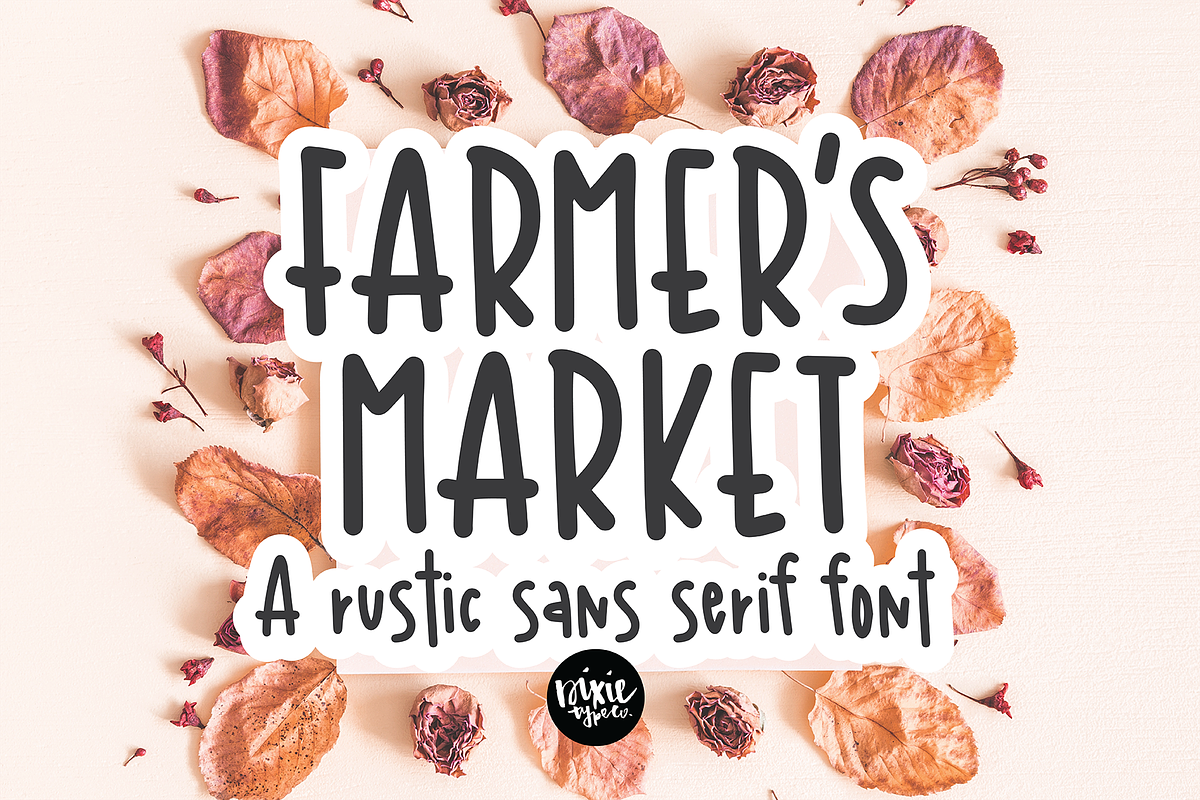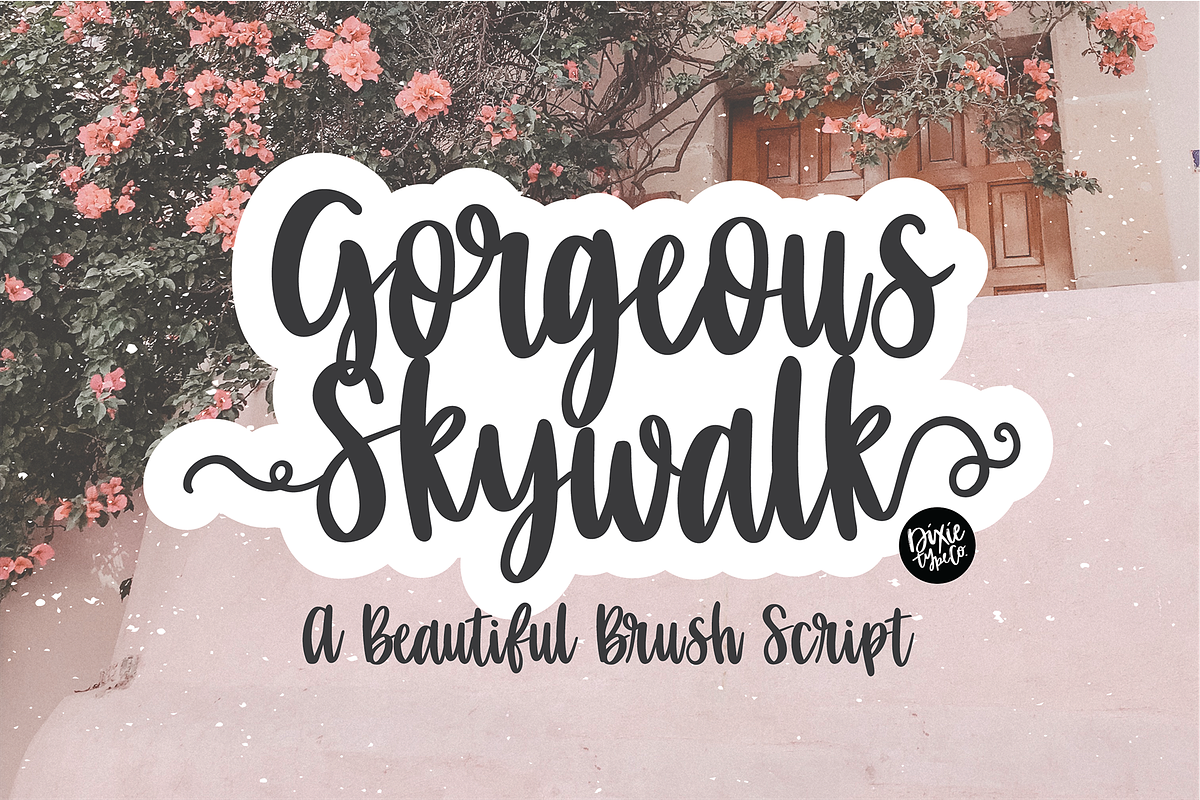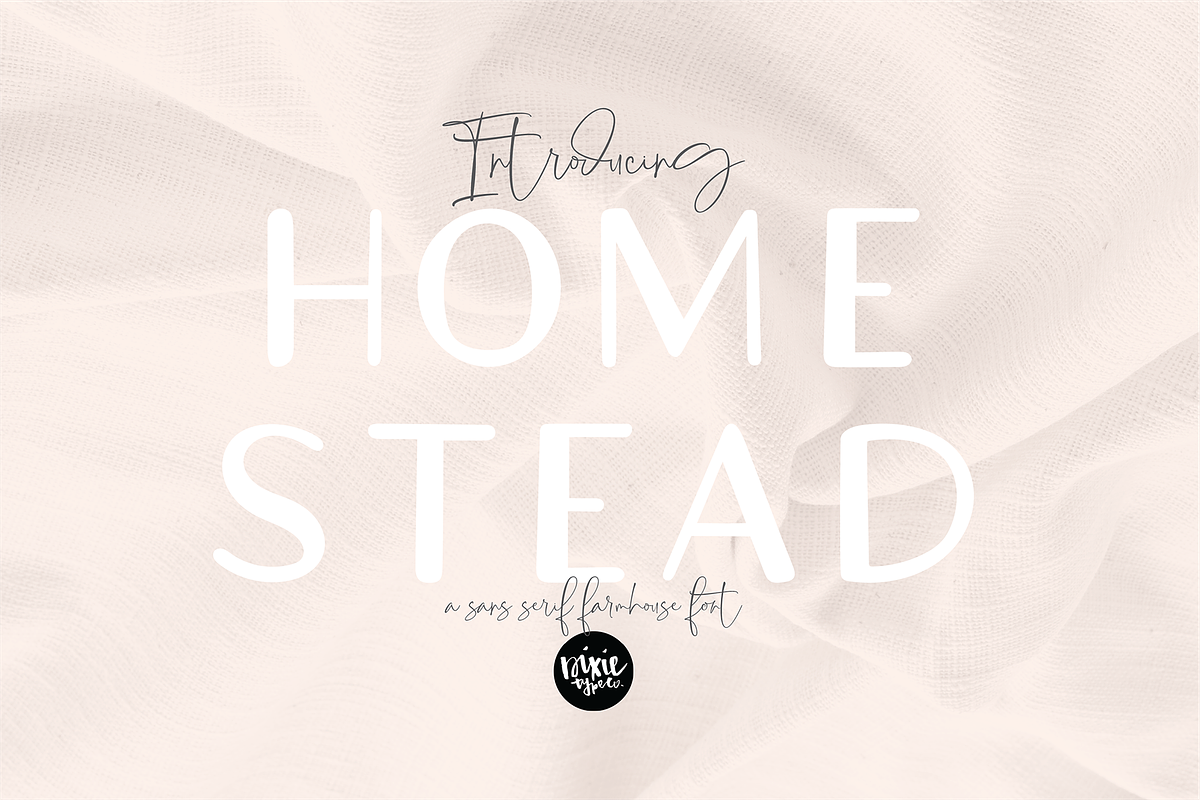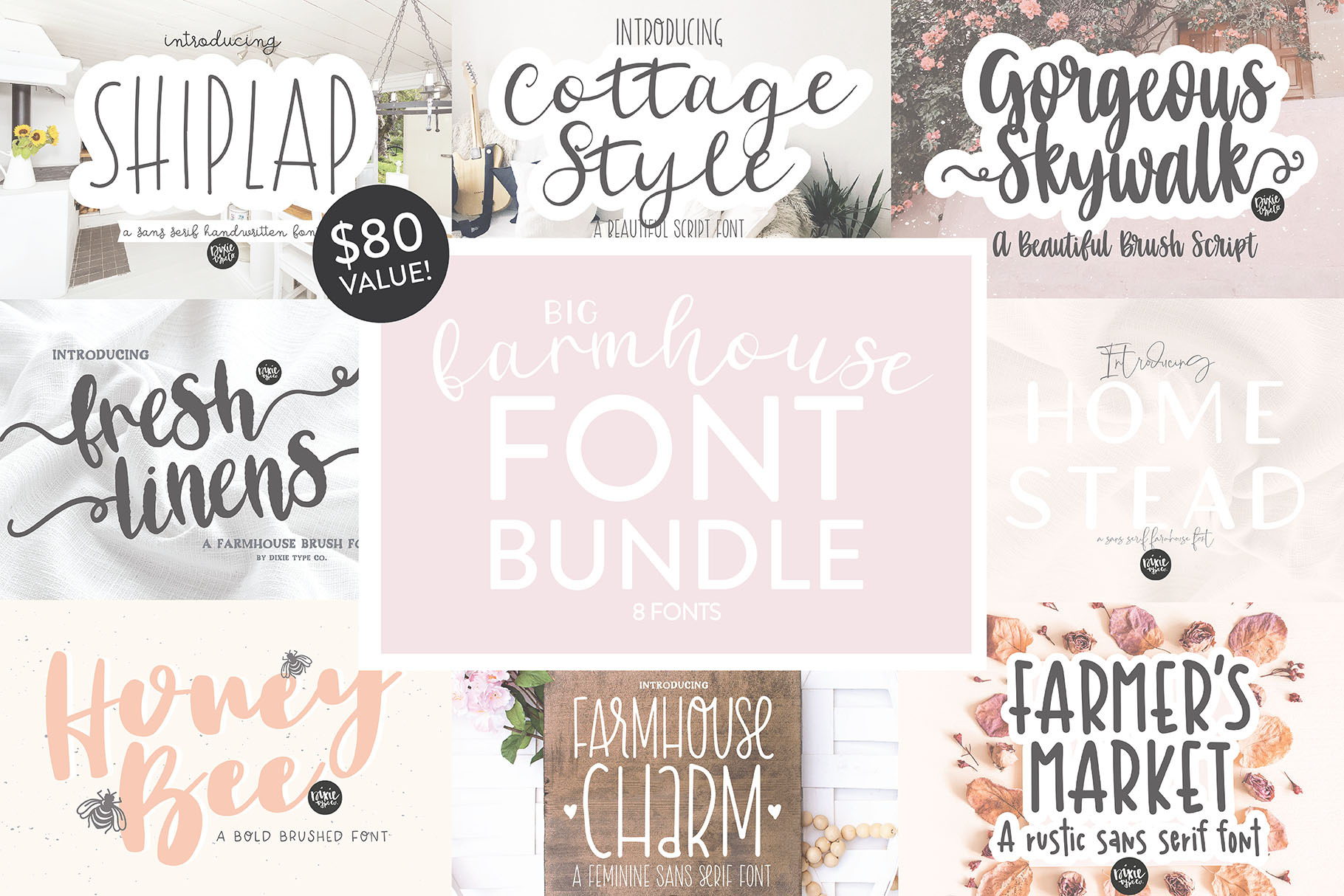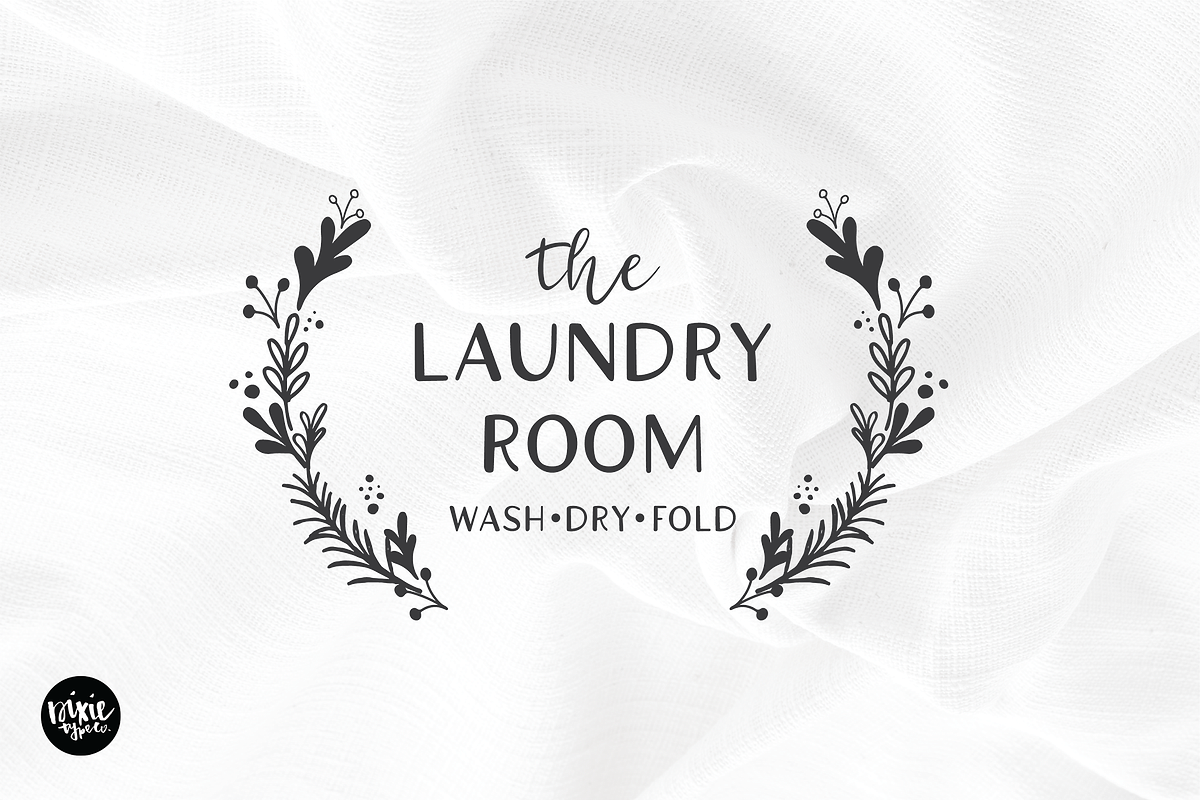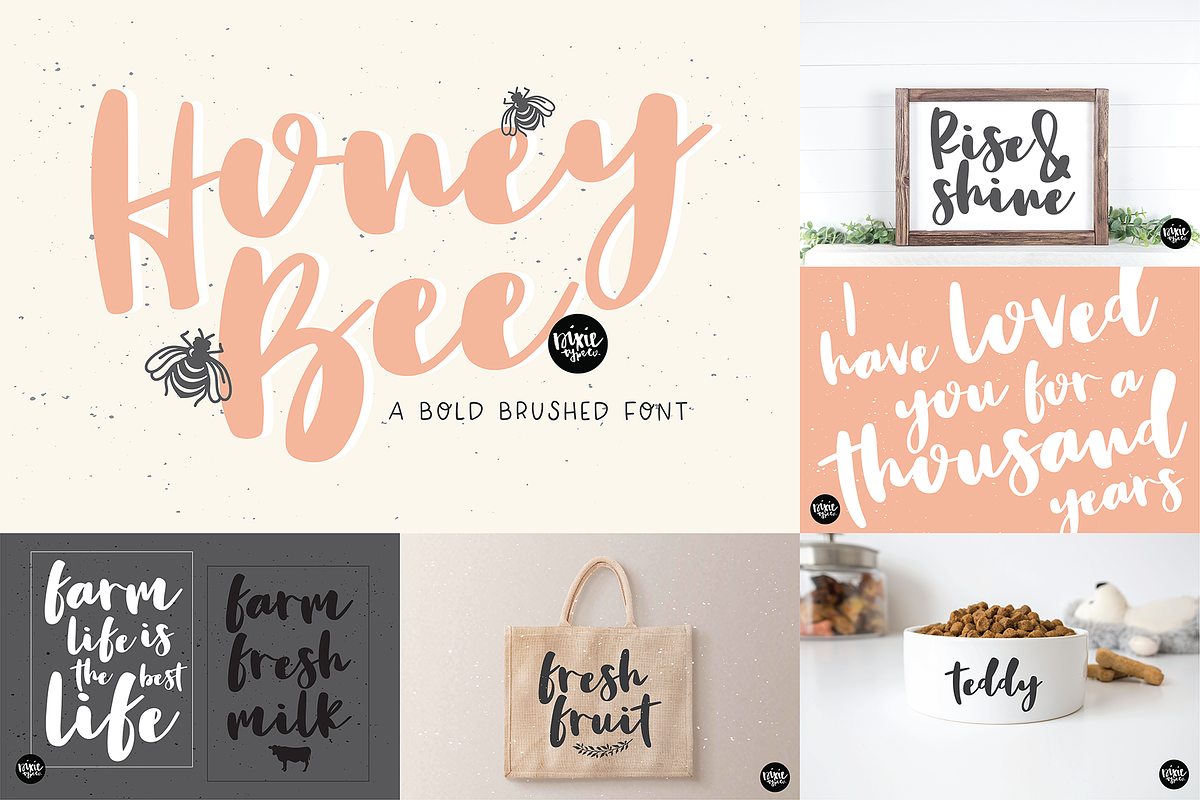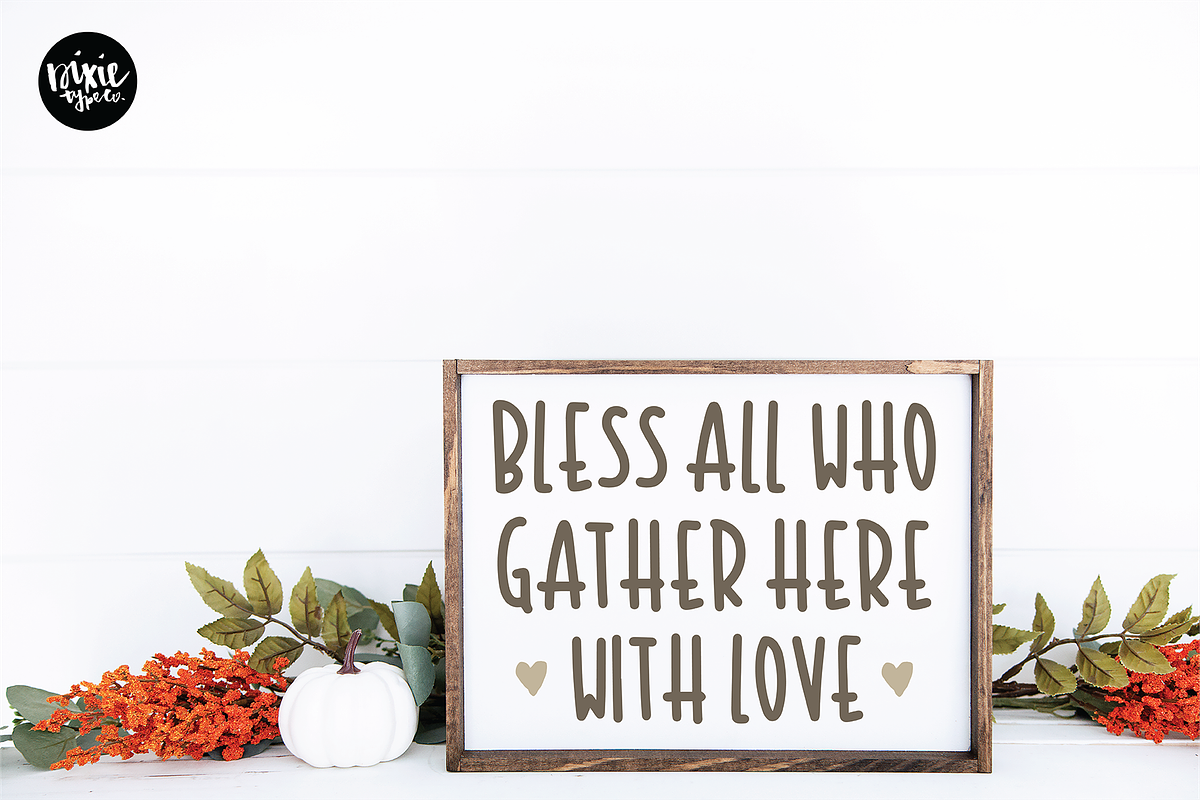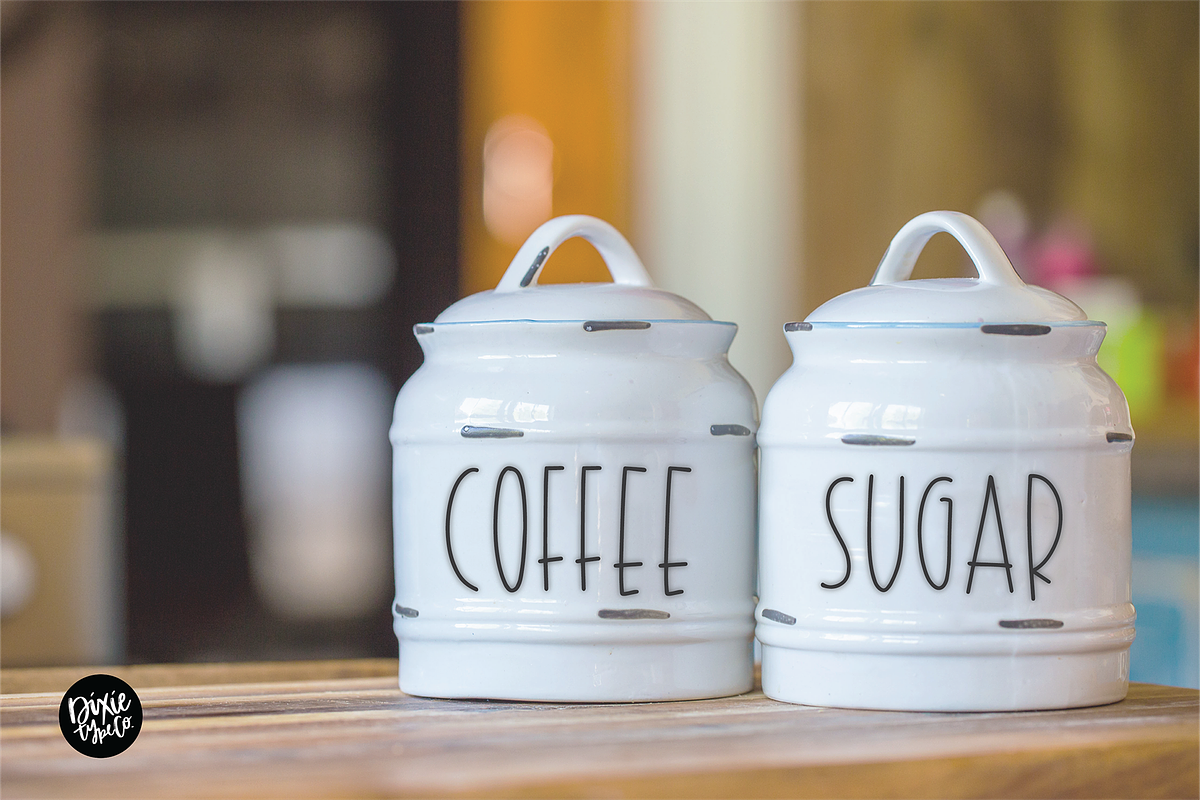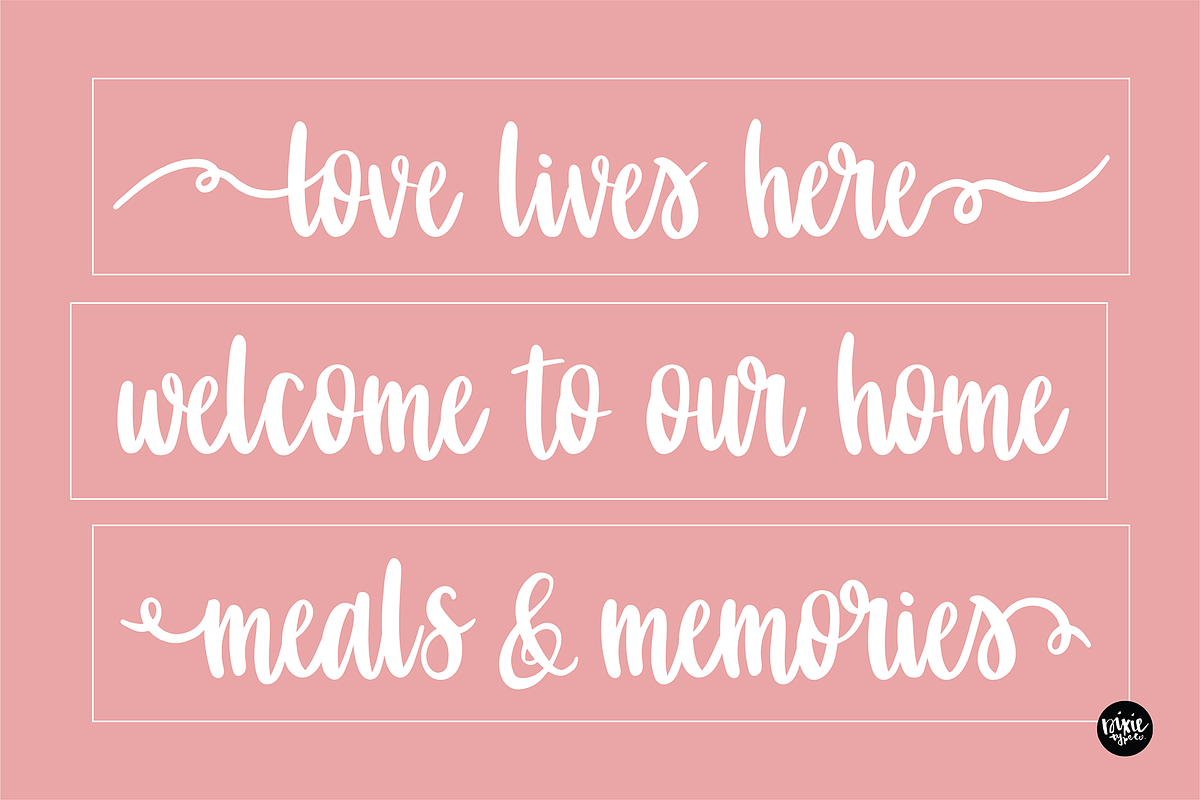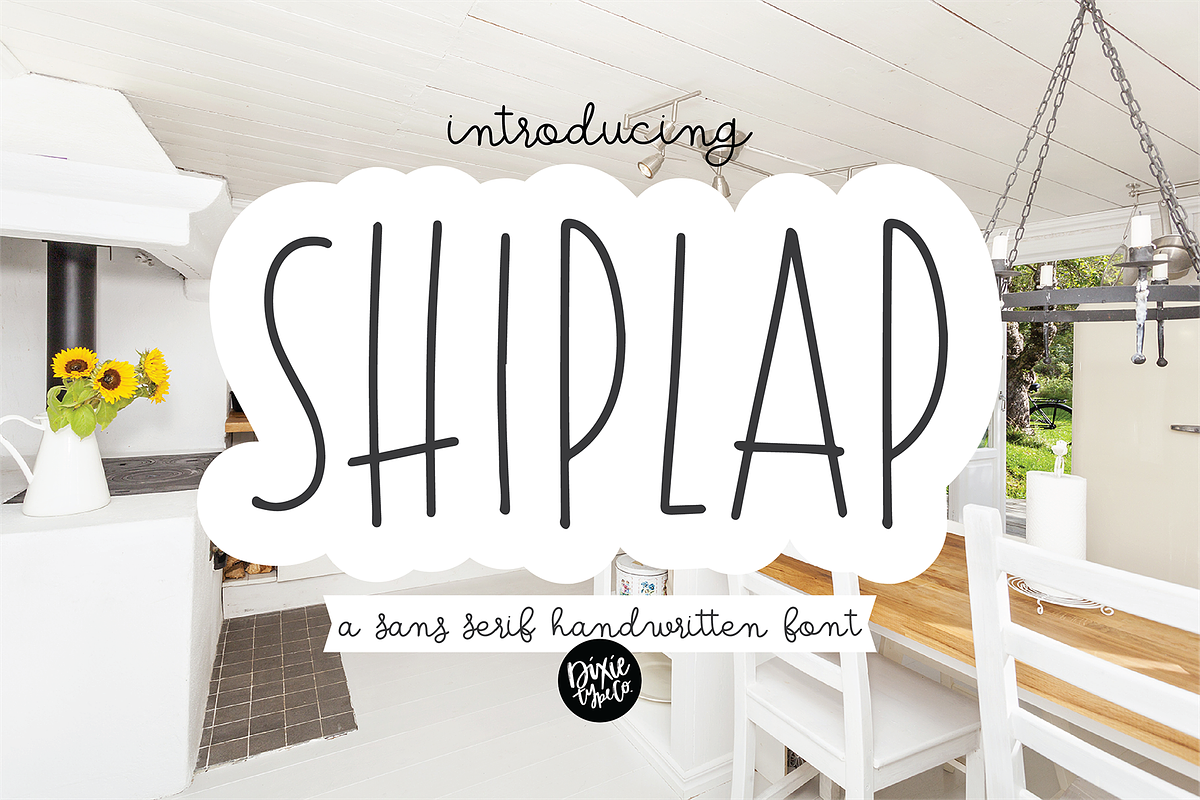
Farmhouse Font Bundle
These fonts were all hand-lettered with a brush and ink, or iPad Pro.
The 8 fonts included are:
SHIPLAP COTTAGE STYLE HOMESTEAD FARMER'S MARKET FARMHOUSE CHARM GORGEOUS SKYWALK HONEY BEE FRESH LINENS